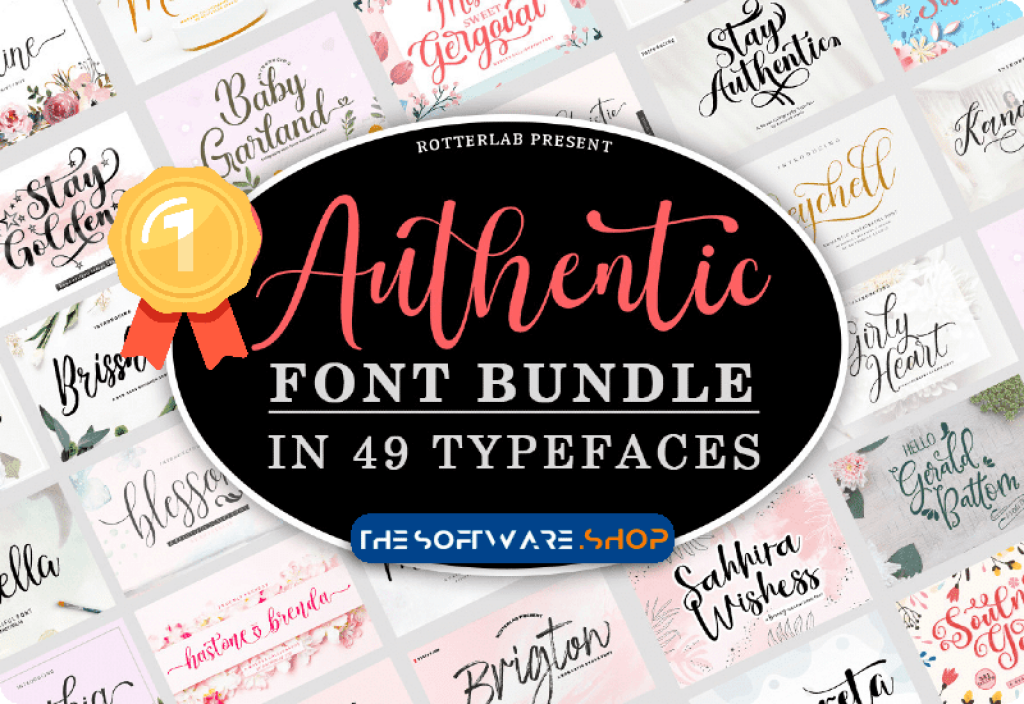
There are many fonts to choose from when it comes to adding an individualized touch to your design, but sometimes you want something that is exactly right for the project. The problem with this dilemma is that there are so many options, and it can be hard to find the perfect font. I’m going to share with you some of my favorite fonts that I have found from a website called Authentic Font Bundle.
This bundle has forty-nine high-quality fonts by rotterlabstudio in a wide range of styles from elegant, retro, cute and much more! And the best part is that these fonts come with a lifetime commercial license. The lifetime commercial license is nice because it means you can make money off anything you create using these beautiful fonts.
- Girly Heart
- Stay Golden
- Baby Garland
- Brilliant Soulmates
- Baby Heart
- Black Ghost
- Ambrogio
- Kimberly Script
- Hello Summer
- Diary Angelique
- Alevander
- Antum
- Hastone Brenda
- Soulmate Garden
- Lattoria Script
- Brissham
- Amoreta
- Gerald Battom
- Family Queen
- Thunder Brush
- Spring Hearts
- Lennox
- Stay Authentic
- Scoot Charrita
- Rameline Script
- Adellia Heart
- Cynthia
- Stay Live
- Blessong
- Maritha Script
- Rushfiel
- Nagatha Christie
- Morrita
- Seychell
- Bestover
- Brigton
- Joos Rilex
- Brinkley
- Bomshel
- Monteray
- Kanghara
- Aunther Signature
- Authentic Sheldon
- Misha Gergoval
- Winther Script
- Ithalia Script
- Rhapsody
- Boshella Script
- Authenia Script